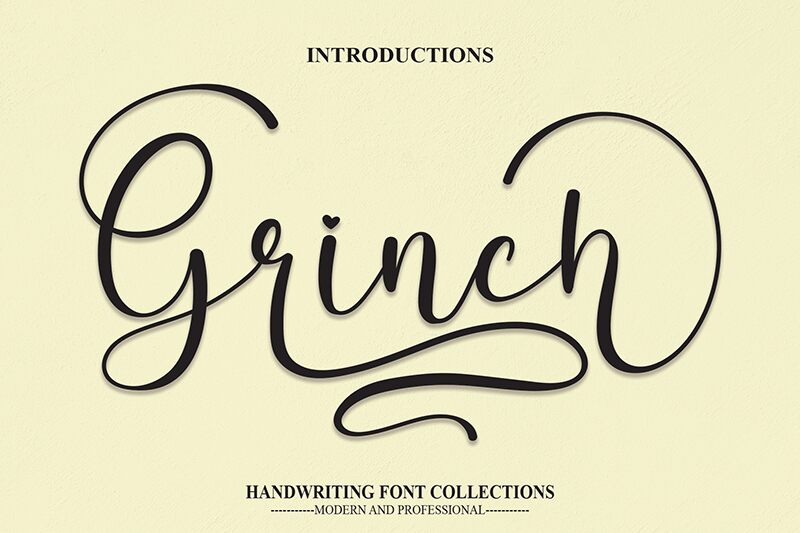
Grinch
Grinch is a stunning calligraphy font designed by scratchones. Its semi-light weight makes it perfect for elegant and refined projects. Whether you're looking to create invitations, greeting cards, or wedding stationery, Grinch will add a touch of sophistication to your designs. This font is also suitable for branding projects such as logos, business cards, and website headers. With its fluid strokes and graceful curves, Grinch will captivate your audience and leave a lasting impression. Try it out today and elevate your next project with this beautiful semi-light calligraphy font!
the latest style letters are perfect for wall displays, wedding invitations, social media post logos, advertisements, product packaging, product designs, labels, photography, watermarks, invitations, stationery, and any project that requires taste handwriting.